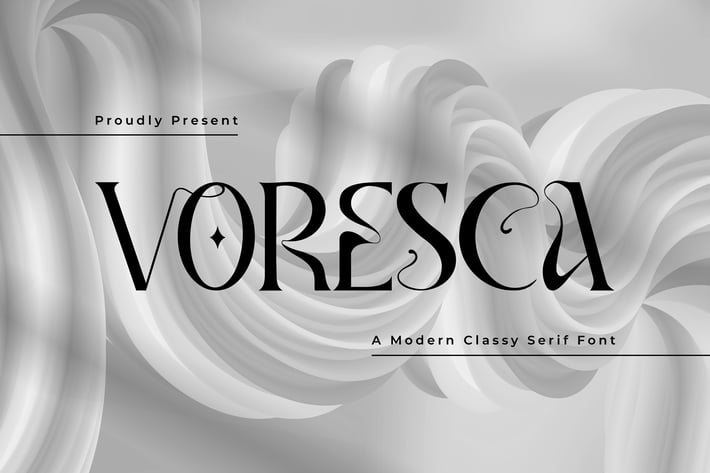
Voresca – A Modern Classy Serif Font
Voresca is a modern classy serif font designed to exude elegance and refinement in every letter. With its sleek lines, graceful curves, and well-defined serifs, this typeface is perfect for luxury branding, editorial design, fashion magazines, and sophisticated invitations.
Featuring a balanced structure and high readability, Voresca seamlessly adapts to both digital and print projects. It includes uppercase and lowercase letters, numerals, punctuation, and multilingual support, making it a versatile choice for designers seeking a premium, high-end aesthetic.
Elevate your creative work with Voresca—where classic meets contemporary in perfect harmony.
Voresca is a modern classy serif font designed to exude elegance and refinement in every letter. With its sleek lines, graceful curves, and well-defined serifs, this typeface is perfect for luxury branding, editorial design, fashion magazines, and sophisticated invitations.
Featuring a balanced structure and high readability, Voresca seamlessly adapts to both digital and print projects. It includes uppercase and lowercase letters, numerals, punctuation, and multilingual support, making it a versatile choice for designers seeking a premium, high-end aesthetic.
Elevate your creative work with Voresca—where classic meets contemporary in perfect harmony.